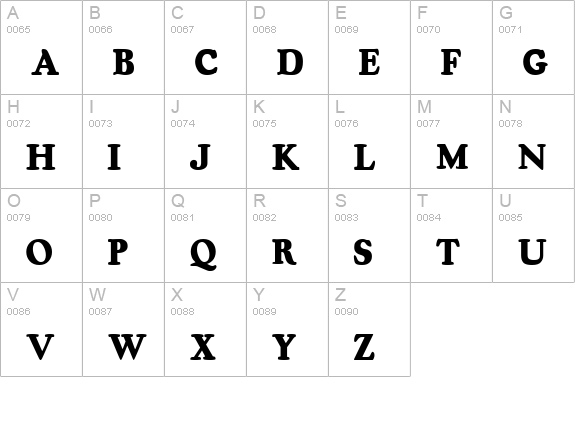
OswaldGrey Regular Font Details
OswaldGrey Regular is the standard, neutral variant in the OswaldGrey typeface family \xE2\x80\x94 well suited to general body text, paragraphs, and standard typographic work.
OswaldGrey Regular font is a modern and elegant typeface that exudes sophistication and style. With its clean lines and contemporary design, this font is perfect for a wide range of design projects, from logos to branding to web design. The versatility of OswaldGrey Regular makes it a staple in any designer's toolkit. Best of all, OswaldGrey Regular is completely free to download at FontsMarket.com. This means you can access this high-quality font without breaking the bank, making it a valuable resource for both professional designers and hobbyists alike. Don't miss out on the opportunity to enhance your designs with the timeless appeal of OswaldGrey Regular font, available for free download now!